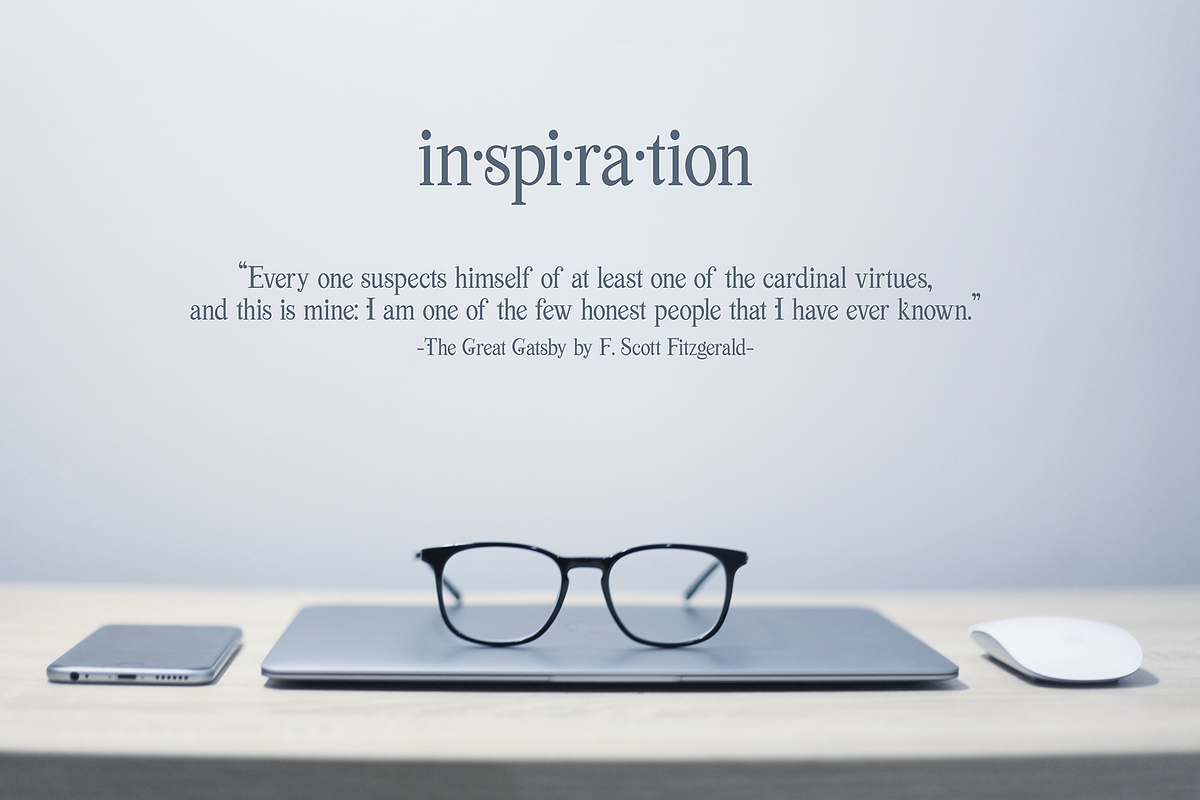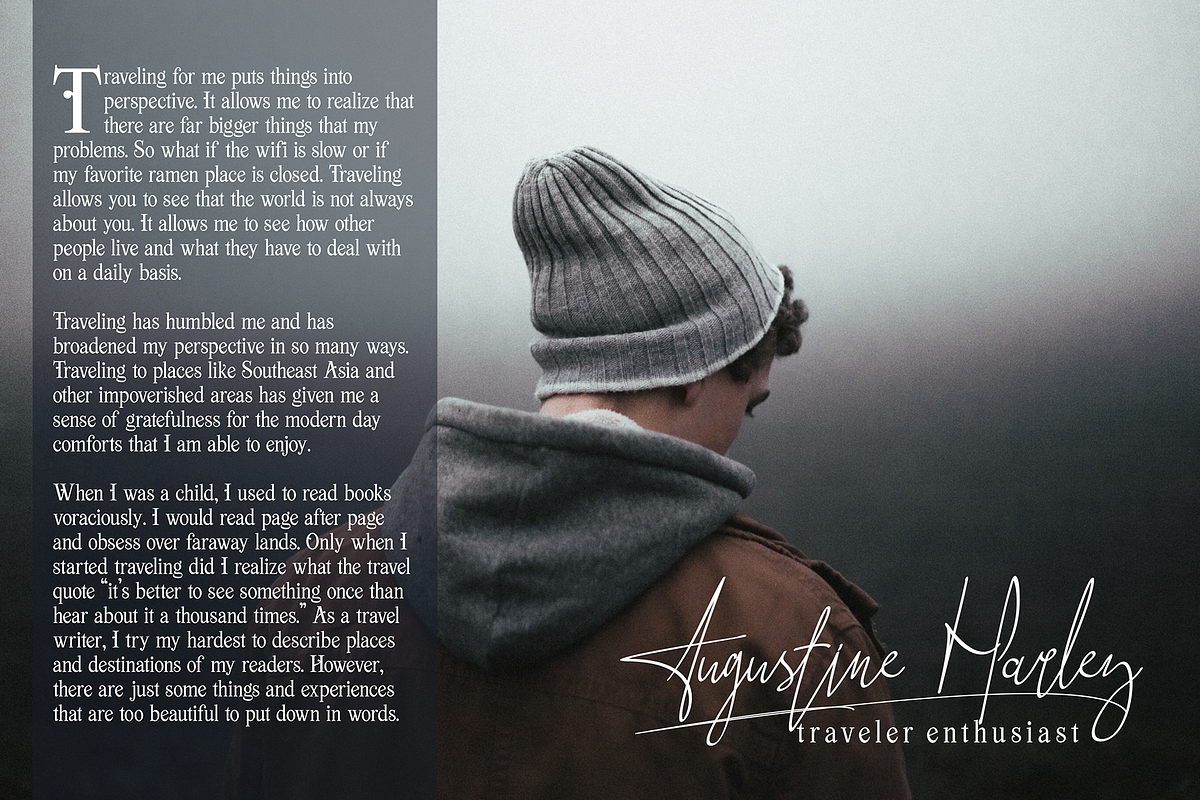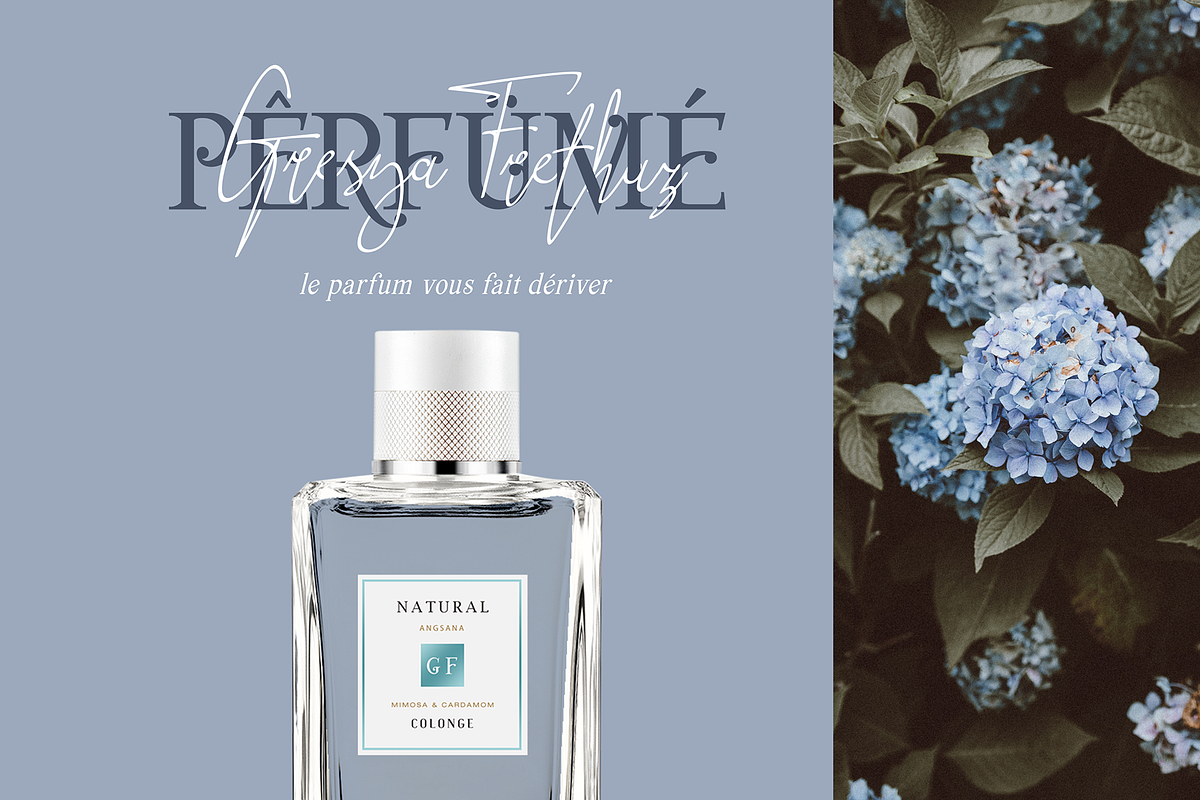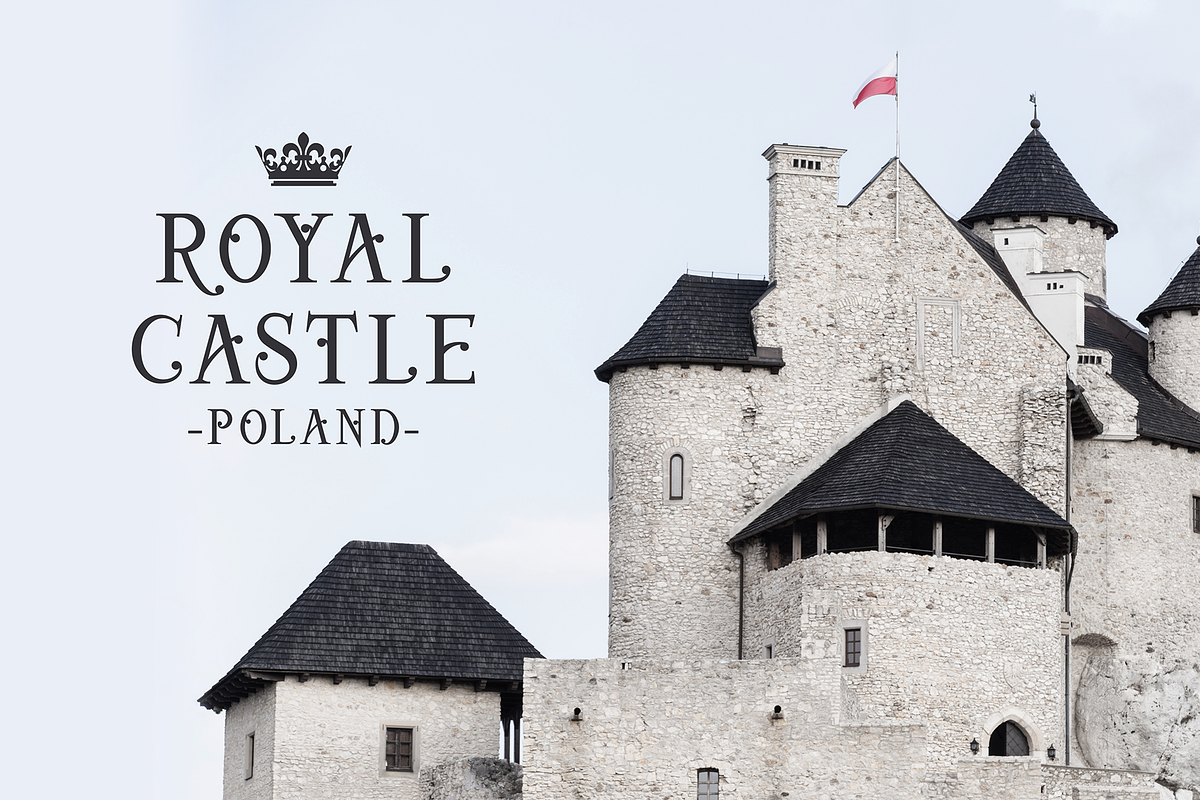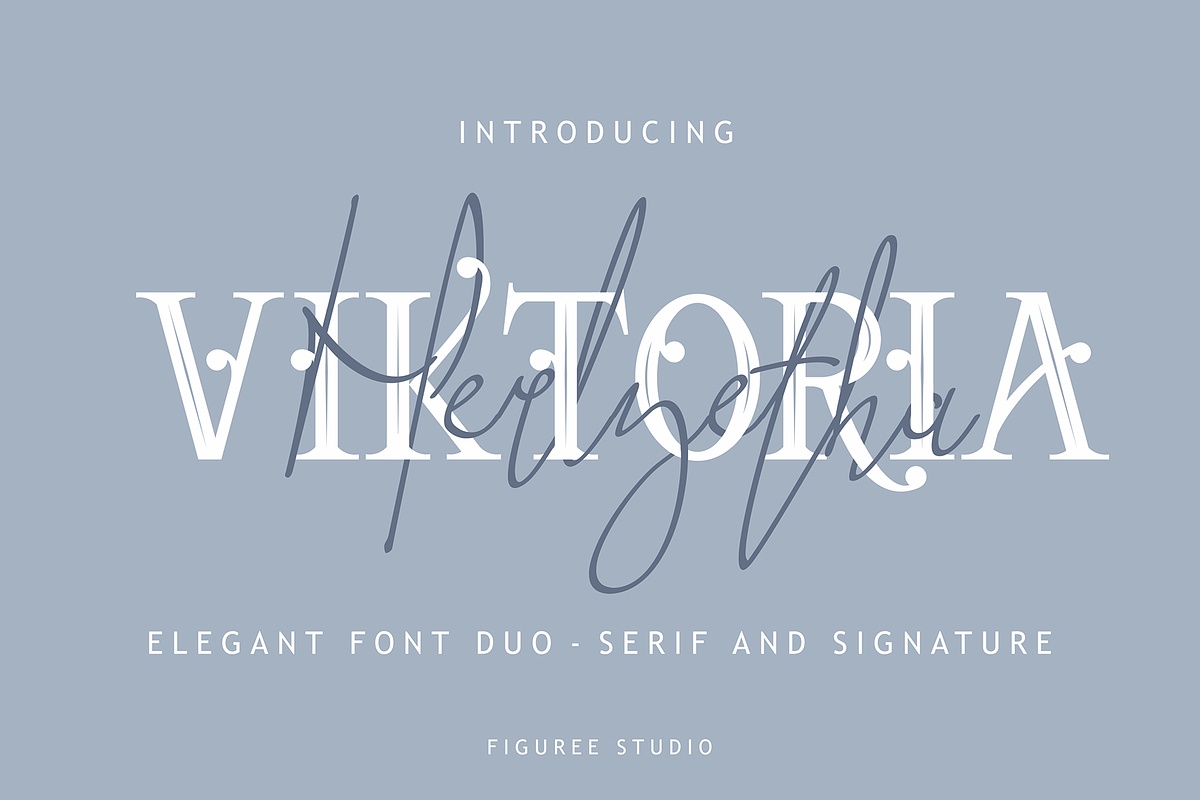
Viktoria Duo Font
This Viktoria Duo Font is perfect for Victorian-inspired branding, elegant historical projects, vintage luxury packaging, heritage hotel materials, classical wedding invitations, antique shop signage, period drama promotions, aristocratic event designs, traditional craftsmanship labels, and regal business communications.
What makes this Viktoria Duo Font exciting is its majestic Victorian elegance that captures the sophisticated grandeur and timeless refinement of the Victorian era. The font duo features complementary serif and decorative styles that work together to create aristocratic typography with historical authenticity and royal sophistication. Its imperial character and period authenticity make it ideal for brands seeking to communicate heritage luxury, classical refinement, and Victorian-era excellence in prestigious markets.
The Viktoria Duo Font family includes serif and ornamental components with multiple weights, Victorian alternates, and period-inspired flourishes. This comprehensive heritage font duo provides designers with aristocratic typographic tools to create historically elegant compositions while maintaining the Victorian character essential for luxury heritage and classical brand communications.
Luxury heritage brands and historical institutions consistently choose Viktoria Duo Font Free Download for projects requiring authentic Victorian appeal and aristocratic sophistication. This font duo's distinctive imperial character perfectly captures the regal elegance and classical refinement that resonate with audiences who appreciate Victorian heritage, historical luxury, and sophisticated period aesthetics.
The aristocratic construction of Viktoria Duo Font showcases elegantly paired letterforms with Victorian proportions that ensure exceptional historical authenticity across all heritage applications. Its imperial elegance and classical sophistication create memorable brand impressions while maintaining the readability necessary for effective luxury heritage communication and period-themed materials.
Professional designers appreciate how Viktoria Duo Font brings immediate historical sophistication and Victorian authenticity to brand communications. The font duo's aristocratic nature allows organizations to communicate heritage luxury and classical excellence while maintaining the sophisticated quality necessary for effective positioning in luxury heritage and historical tourism markets.
The timeless appeal of Viktoria Duo Font makes it particularly effective for brands emphasizing Victorian heritage, aristocratic elegance, and classical sophistication. Its imperial character resonates strongly with audiences who appreciate historical luxury, period authenticity, and brands that celebrate the magnificent grandeur of Victorian-era refinement.
Whether developing branding for heritage luxury hotels or creating materials for historical cultural events, Viktoria Duo Font Free Download provides the aristocratic typographic foundation that heritage brands need to communicate their Victorian authenticity, imperial elegance, and the majestic sophistication that defines classical luxury and historical excellence.